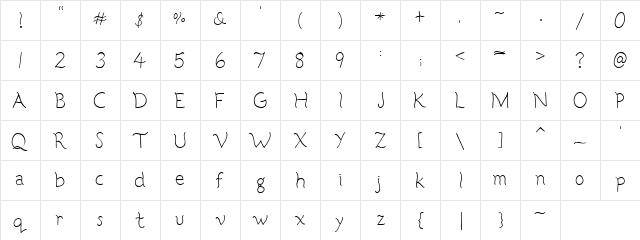
PC Swayin Regular
Design Context for PC Swayin Typeface
PC Swayin is a composed and adaptable typeface that performs quietly and consistently across a wide range of design contexts.